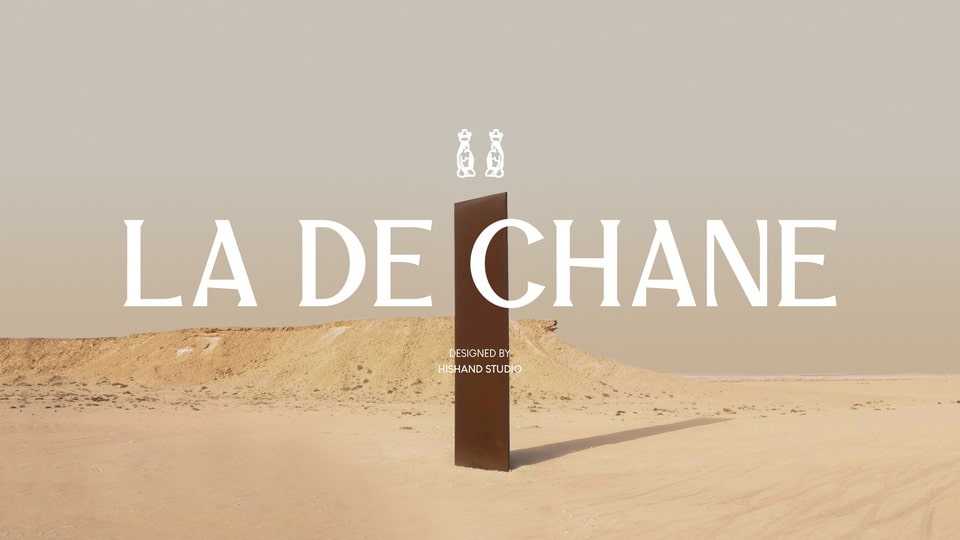
Download La De Chane font, a sophisticated serif typeface that blends timeless elegance with modern design, high-contrast strokes, refined curves, and sharp serifs.